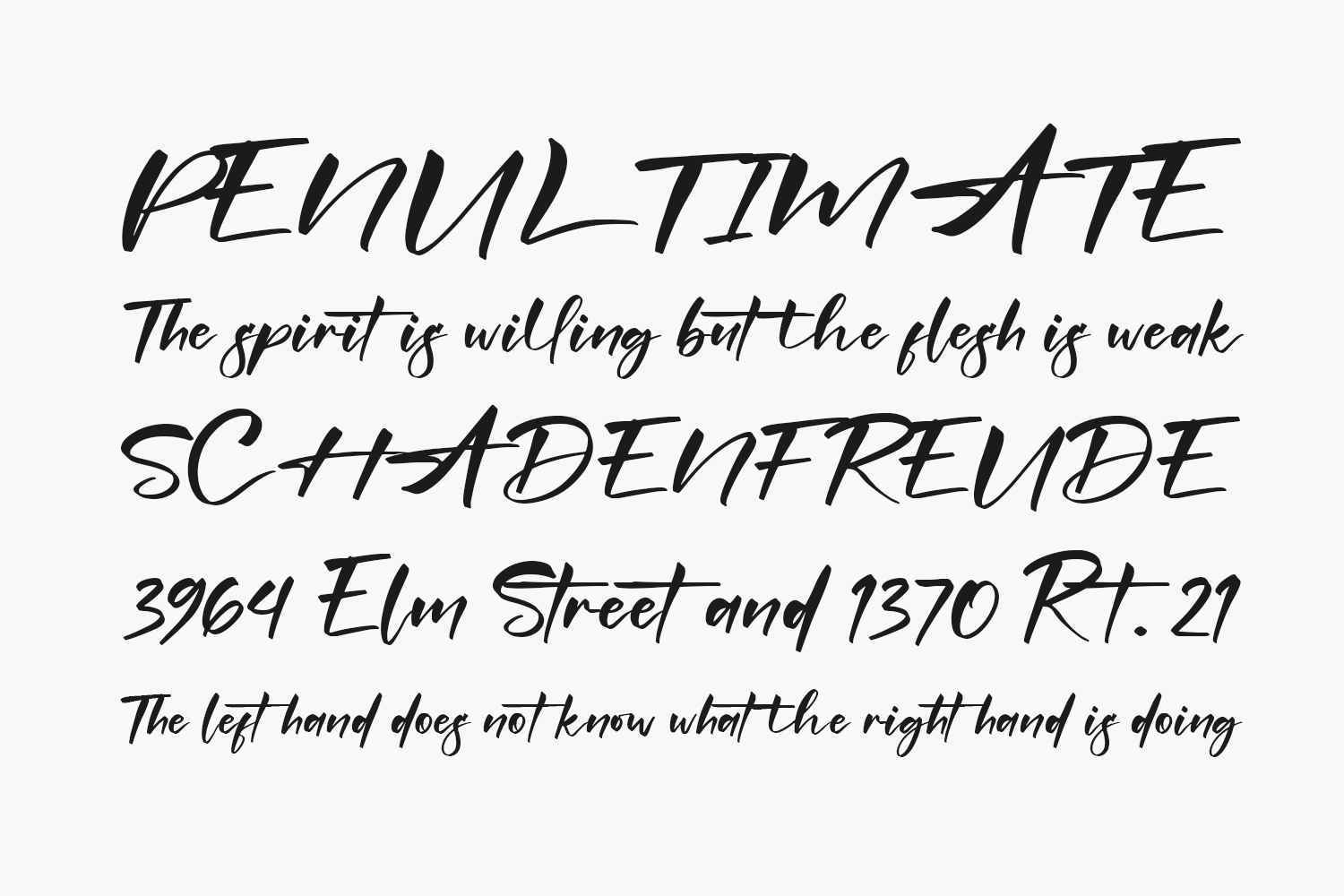
Crafted with precision and elegance, Responsible Free Font is a brushed script font designed to elevate your projects. Whether you’re seeking fonts for Instagram posts or calligraphy scripts for DIY endeavors, this font transforms every creative concept into a masterpiece. Download the font for free if you need it for personal use or purchase the full version for commercial use.
Designed by Wildan Type